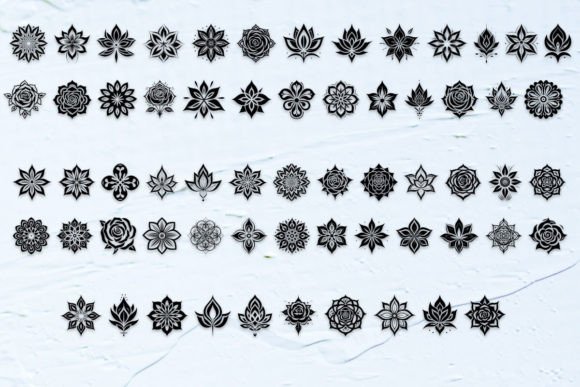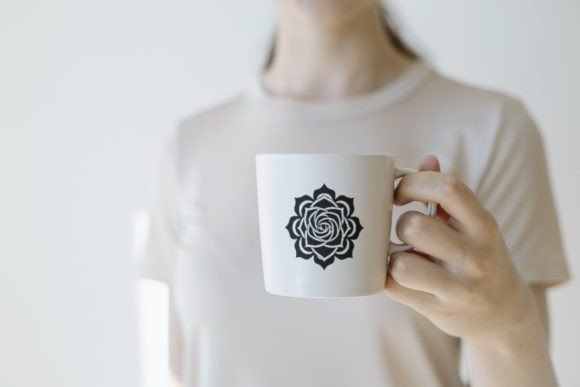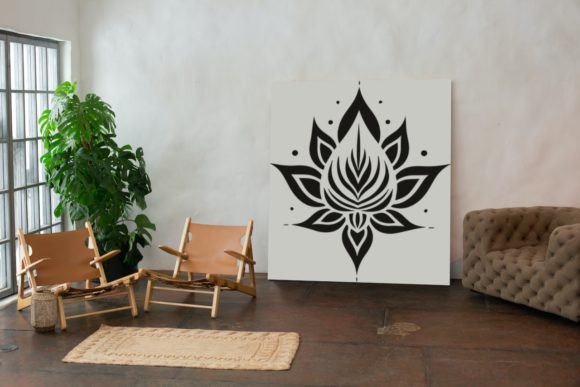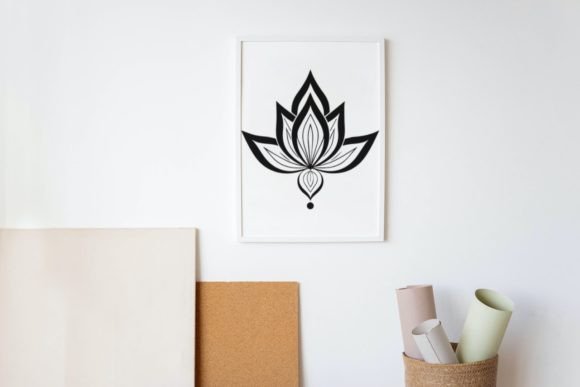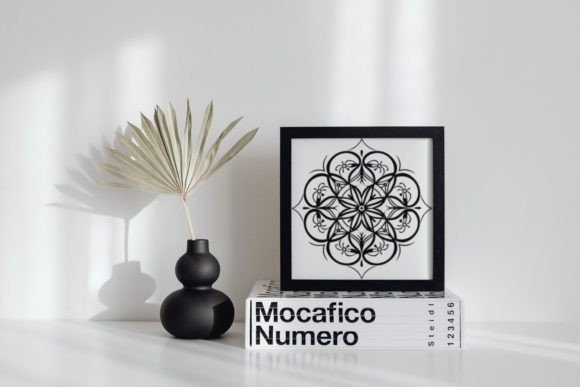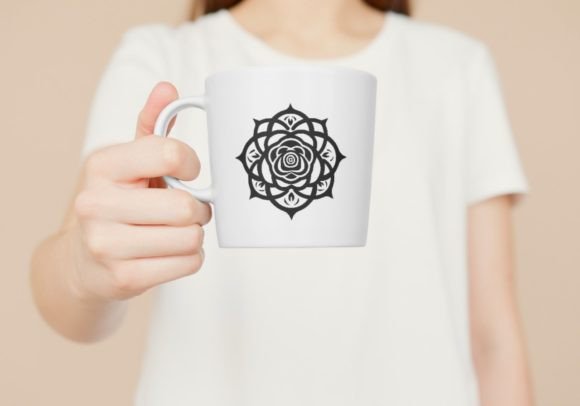
Introduction to Powerful Geometric Font Font
Fonts play a crucial role in design, and the Powerful Geometric Font font is a typeface that brings both character and versatility to any project. Whether you’re working on a branding project, a website, or a print design, the Powerful Geometric Font font offers a unique style that can elevate your work.
The Powerful Geometric Dingbats is a dynamic collection featuring 62 captivating symbols.
It includes 26 uppercase and 26 lowercase letters, along with 10 numbers (0-9) These bold and modern design elements are rooted in geometric shapes, making them perfect for adding a strong and visually striking dimension to your creative projects.
Key Features of Powerful Geometric Font Font
Why Choose Powerful Geometric Font Font?
The Powerful Geometric Font font is more than just a typeface – it’s a design tool that helps you communicate your message with style and clarity. Its unique character set and versatile design make it suitable for a wide range of applications, from elegant invitations to bold headlines.
With its carefully crafted letterforms and balanced proportions, the Powerful Geometric Font font ensures readability and visual appeal across all mediums.
What makes Powerful Geometric Font font special?
The Powerful Geometric Font font stands out with its unique design, exceptional readability, and versatility across various design applications.